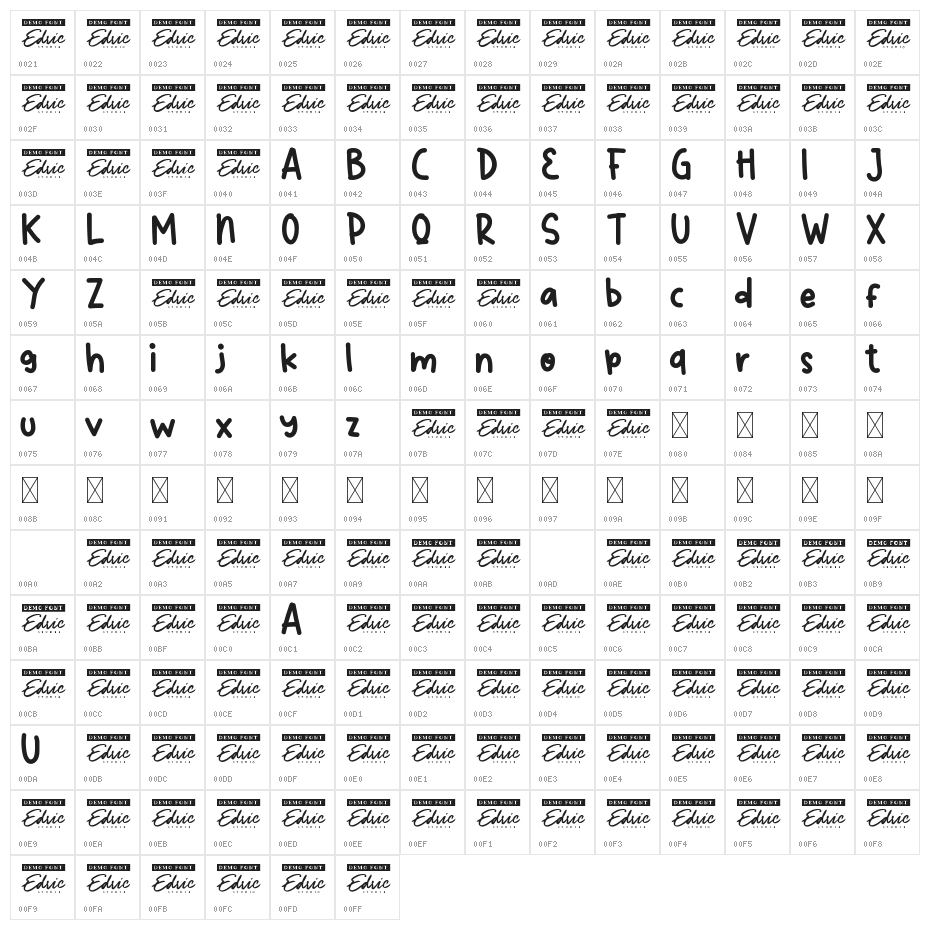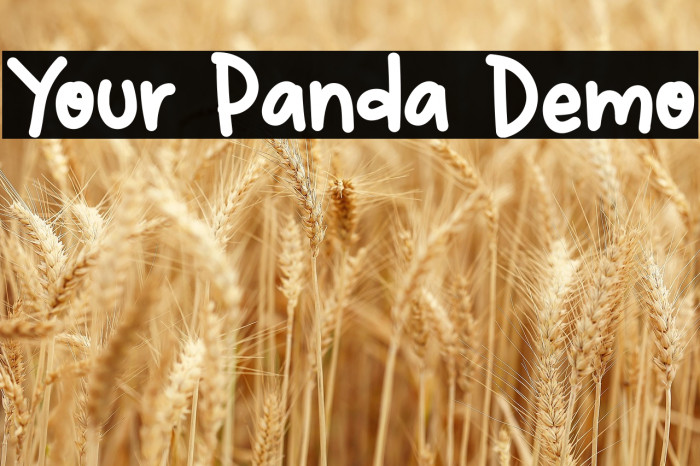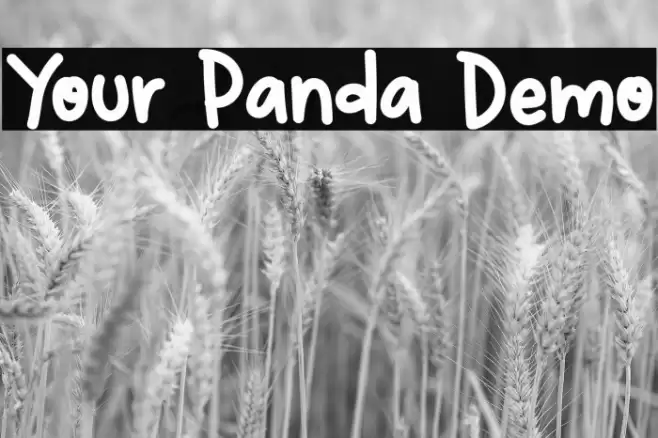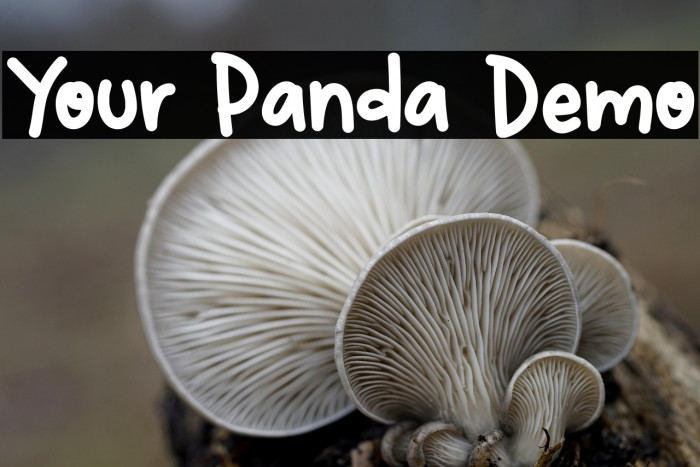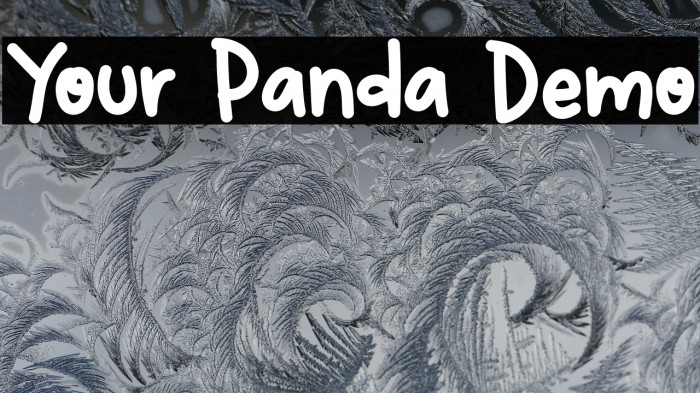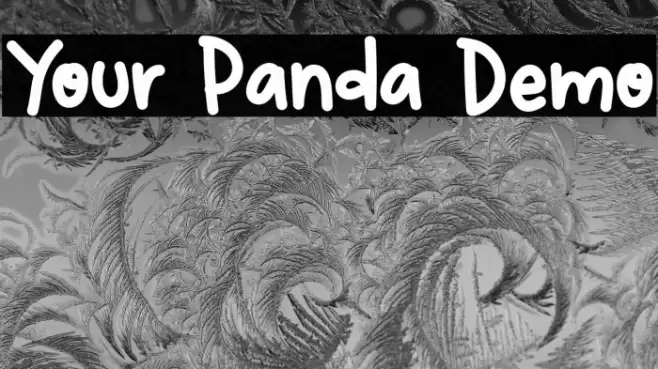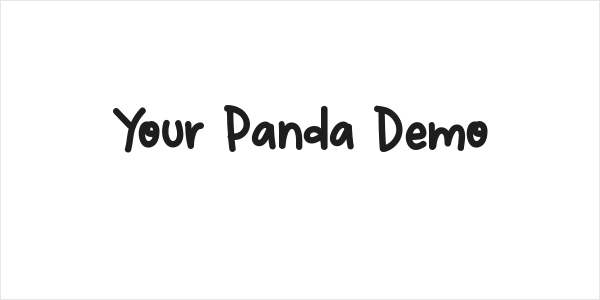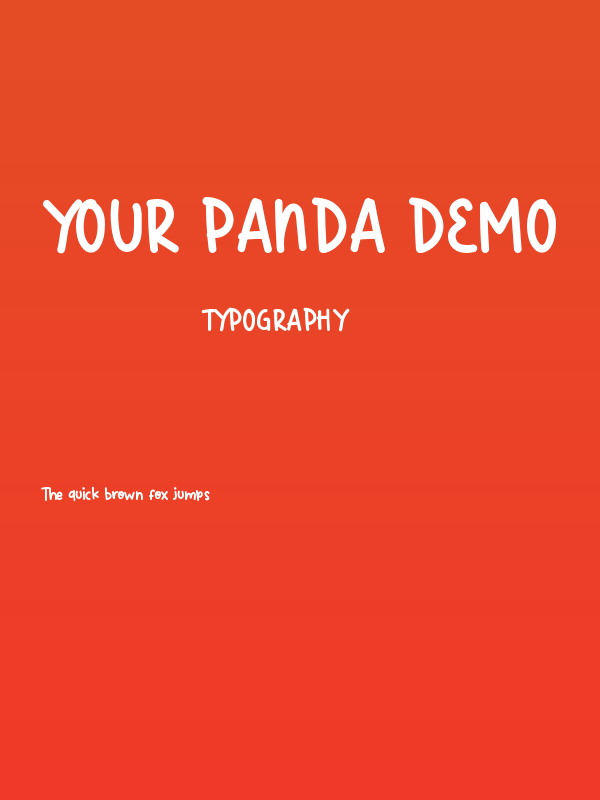
Your Panda Demo Font
Your Panda Demo Description
This playful and whimsical font features a handwritten style with rounded edges and a casual, friendly appearance. The characters are bold and slightly irregular, giving them a lively and informal feel. The uppercase and lowercase letters maintain a consistent style, with a slight tilt that adds to the font's dynamic nature. The numbers and special characters are designed to match the overall aesthetic, ensuring a cohesive look. This font is perfect for projects that require a personal touch, such as invitations, greeting cards, or children's books. Its approachable and fun style makes it ideal for conveying warmth and creativity.
| Overall Style | Playful, Whimsical |
| Use Case | Headlines, Logos, Creative projects |
| Proposed Projects | Ideal for invitations, greeting cards, children's books, and creative projects. |